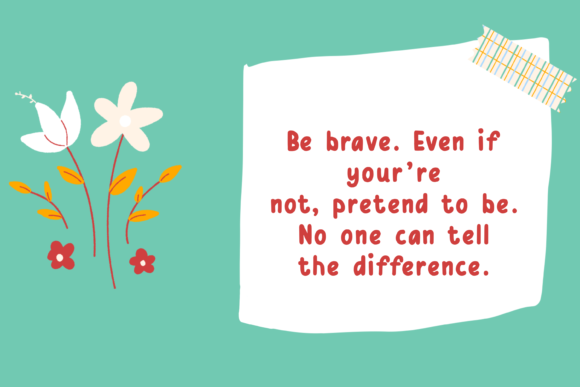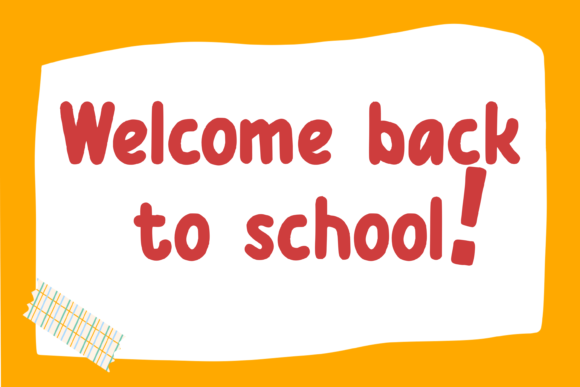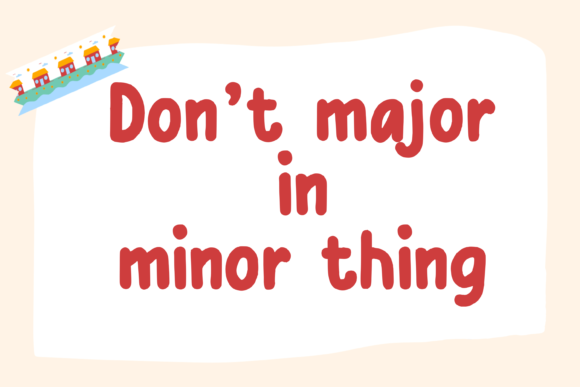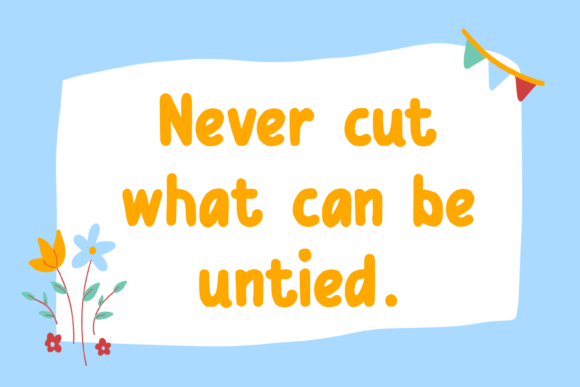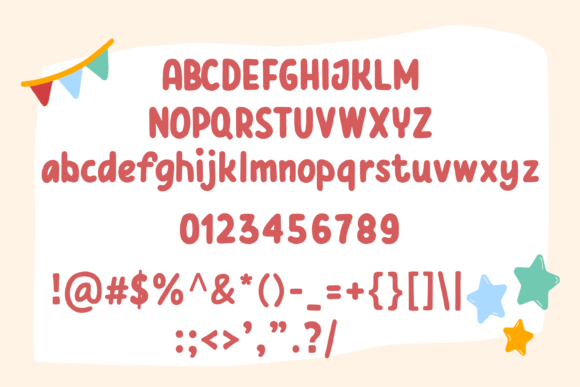
Cotton Candy Font: The Sweetest Addition to Your Designs
Are you looking for a font that can add a touch of youth and joy to your designs? Look no further than the Cotton Candy font! This cute and friendly display font is perfect for party invitations, gatherings, and any design that needs a playful twist. In this article, we’ll dive into the world of Cotton Candy font and explore its features, uses, and benefits for designers and crafters.
What is Cotton Candy Font?
Cotton Candy font is a display font designed to resemble the sweet and fluffy treat that we all know and love. It’s a sans-serif font with a playful and whimsical feel, making it perfect for designs that require a touch of fun and youthfulness. The font is available in various formats, including OTF, TTF, and WOFF, making it compatible with most design software.
Features of Cotton Candy Font
So, what makes Cotton Candy font so special? Here are some of its key features:
- Cute and Friendly Design: The font has a sweet and endearing design that’s sure to bring a smile to anyone’s face.
- Playful and Whimsical: The font has a playful and whimsical feel that’s perfect for designs that require a touch of fun and youthfulness.
- Easily Readable: Despite its playful design, the font is easily readable, making it perfect for titles, headings, and short paragraphs.
Uses of Cotton Candy Font
So, how can you use Cotton Candy font in your designs? Here are some ideas to get you started:
- Party Invitations: Use Cotton Candy font to create fun and playful party invitations that will set the tone for your event.
- Gatherings and Events: The font is perfect for designing posters, flyers, and brochures for gatherings and events.
- Children’s Designs: Cotton Candy font is a great addition to any design aimed at children, including children’s books, games, and activities.
- Branding and Packaging: Use the font to create playful and eye-catching branding and packaging for your products.
Benefits of Using Cotton Candy Font
So, why should you choose Cotton Candy font for your designs? Here are some benefits:
- Adds a Touch of Youth and Joy: The font adds a playful and youthful touch to your designs, making them more engaging and fun.
- Unique and Creative: Cotton Candy font is a unique and creative font that will set your designs apart from the rest.
- Easily Customizable: The font is easily customizable, allowing you to adjust its size, color, and style to suit your design needs.
- Time-Saving: With Cotton Candy font, you can create professional-looking designs in no time, saving you time and effort.
Tips for Using Cotton Candy Font
Here are some tips for using Cotton Candy font in your designs:
- Use it Sparingly: While Cotton Candy font is playful and fun, it’s best to use it sparingly to avoid overwhelming your design.
- Pair it with Other Fonts: Pair Cotton Candy font with other fonts to create a unique and interesting design.
- Adjust its Size and Color: Adjust the size and color of the font to suit your design needs.
- Experiment with Different Styles: Experiment with different styles, such as bold, italic, and underline, to add variety to your design.
In conclusion, Cotton Candy font is a cute and friendly display font that’s perfect for adding a touch of youth and joy to your designs. With its playful and whimsical design, high-quality format, and ease of use, it’s a great addition to any design project. Whether you’re a designer, crafter, or DIY enthusiast, Cotton Candy font is sure to bring a smile to your face and a touch of fun to your designs.